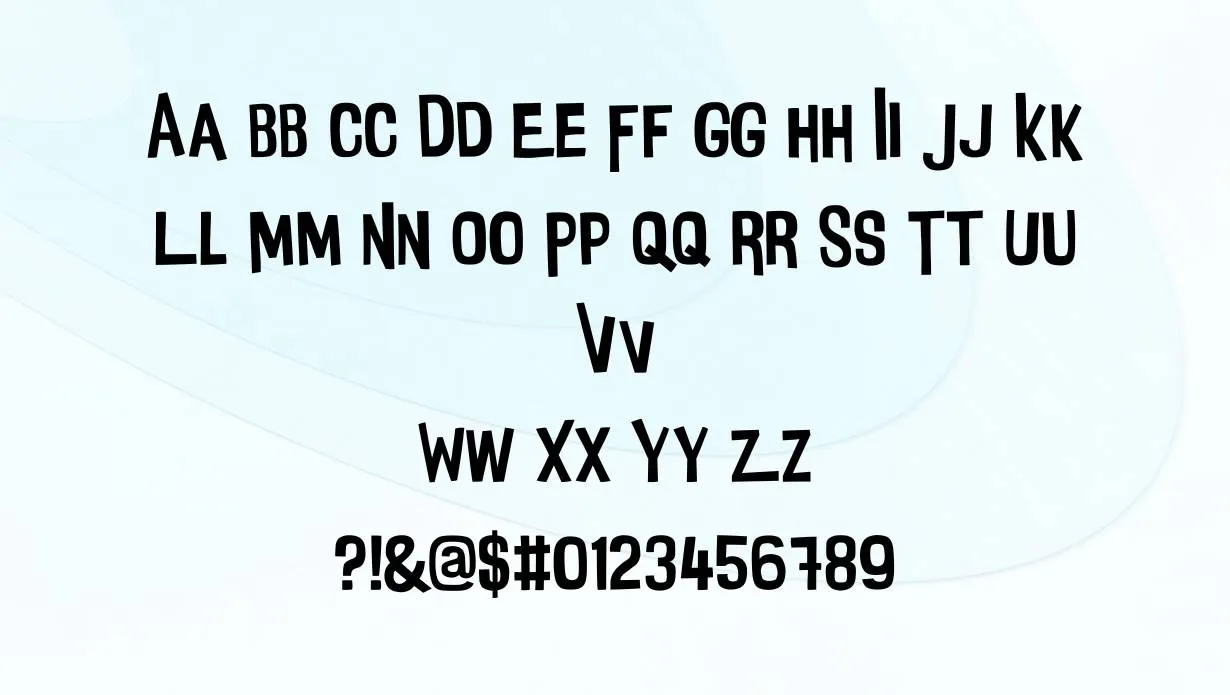
Discover the Inside Out Font for a striking and different look perfect for standing out in branding, advertising, and creative projects. This font choice is guaranteed to make a lasting impression and set your designs apart from the rest. Ready to make a statement with your text? Keep reading to explore the exciting possibilities this font brings to your projects!
Your Shirts Inside Out Font Family
The font’s bold and irregular letterforms add a sense of originality and individuality to your designs.
| Name | Your Shirts Inside Out Font |
| Designer | Abo Daniel |